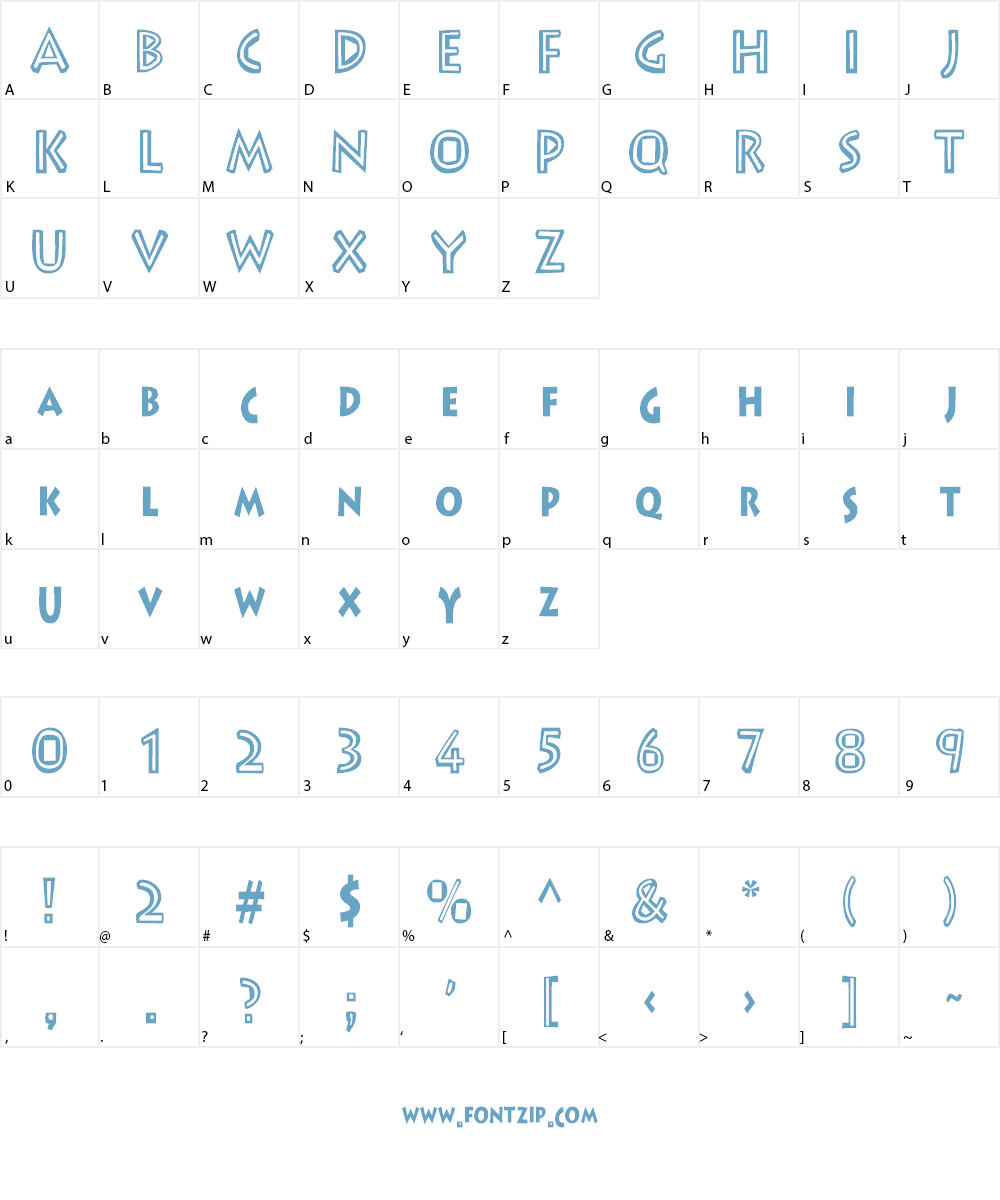
uBuntu - the African spirit of empathy for our fellow humans.Afrikanize your docs with uBuntu headlines or Dropcaps.
Full 94-character set with upper and lower case.